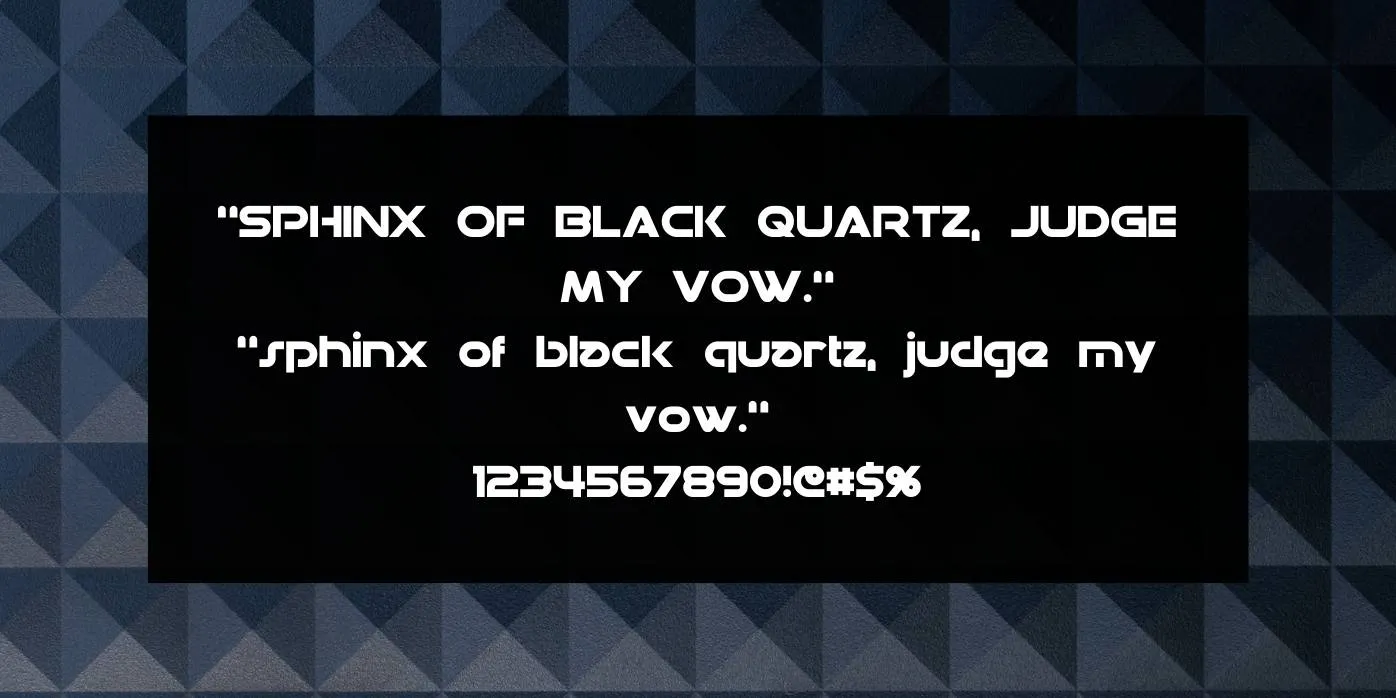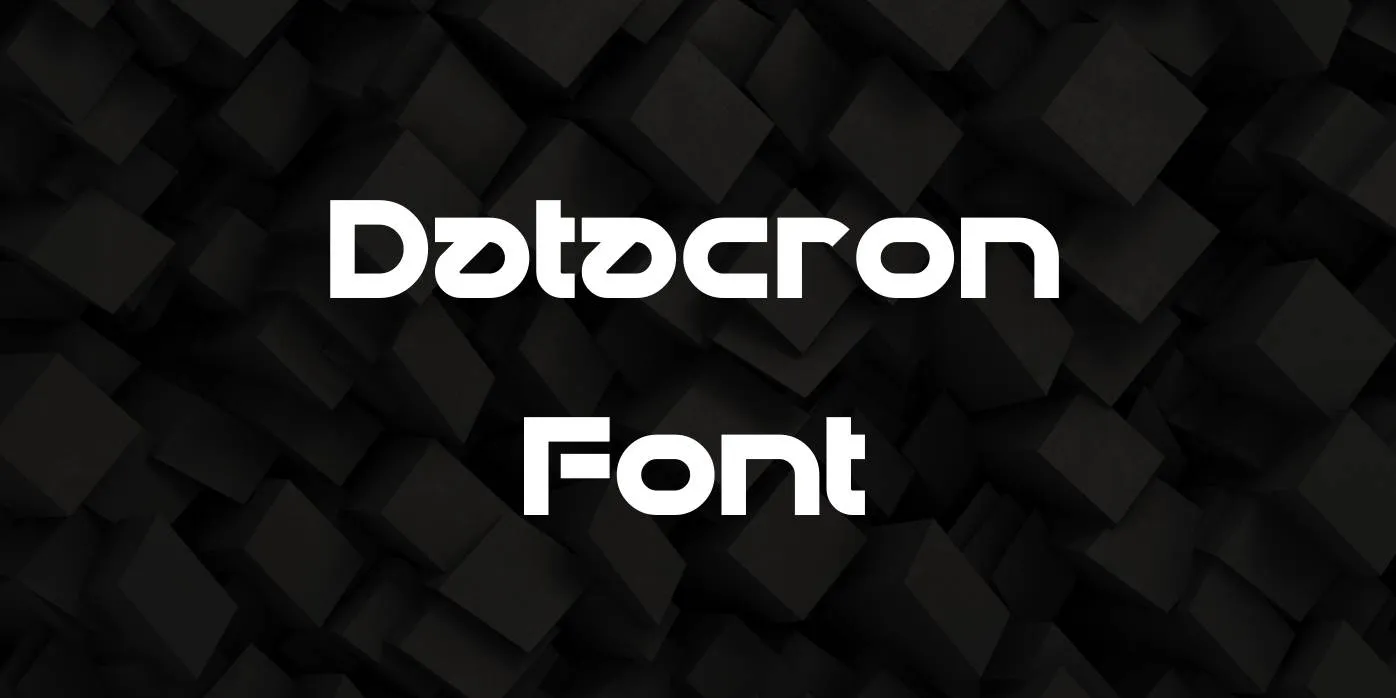
Datacron Font
Datacron Font is a techno-typeface that was designed to be used for data visualization. It was created by Timothy Donaldson in collaboration with Microsoft Research and the University of Washington. This is the primary font for data visualization. It is a techno typeface that is designed to be easy to read on screens.
This font is intended for use in large text or headlines. The Font family was released in 2016. The fonts are available under the SIL Open Font License and can be downloaded from GitHub. If you want to see the similarities of this typeface and want to pair them then hype typeface is the best option for you.